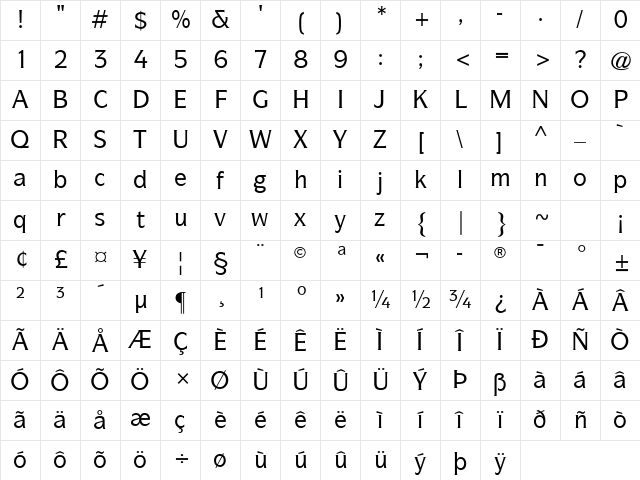
Design Context for ITCSymbol Medium
ITCSymbol Medium is a composed and adaptable typeface that performs quietly and consistently across a wide range of design contexts.
Pro Tip: Use ITCSymbol Medium in both headline and body roles to test its range before committing to a single application.